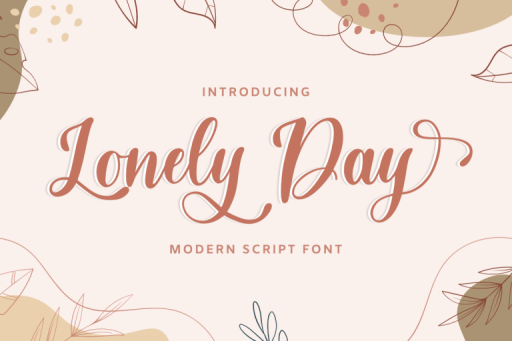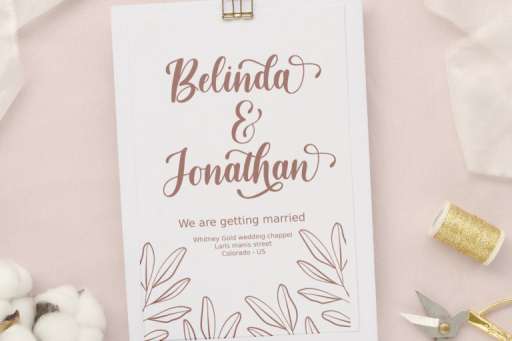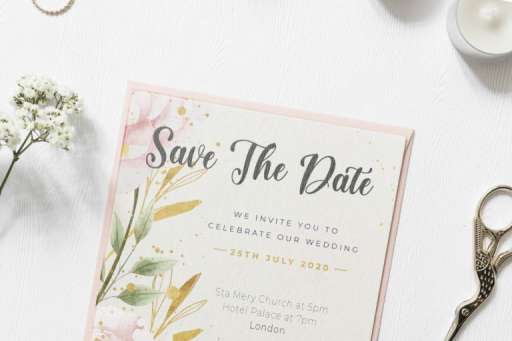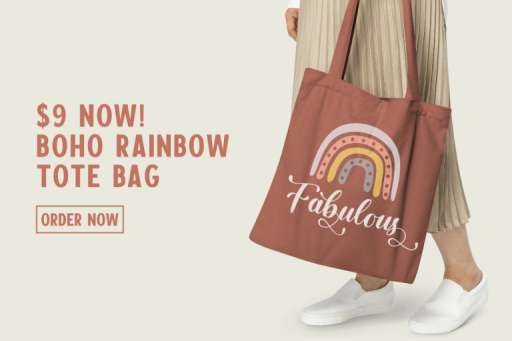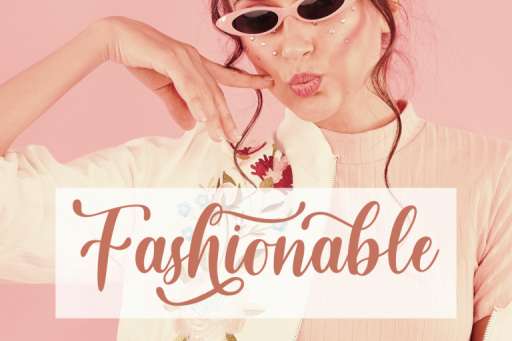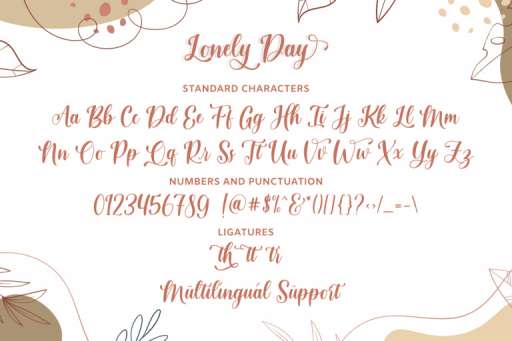
Lonely Day Font - Wedding Business From Jimtype Studio
Lonely Day Regular
Lonely Day – Sweet Handwritten Script
Lonely Day is a sweet and expensive script with additional ligatures and stylistic set alternates dancing above and below the letters. This font is made with a fun theme and is perfect for logos, wedding invitations, headings, t-shirts, letterheads, signage, labels, news, posters, badges, etc.
Lonely Day Features :
• Stylistic Set
• Multilingual